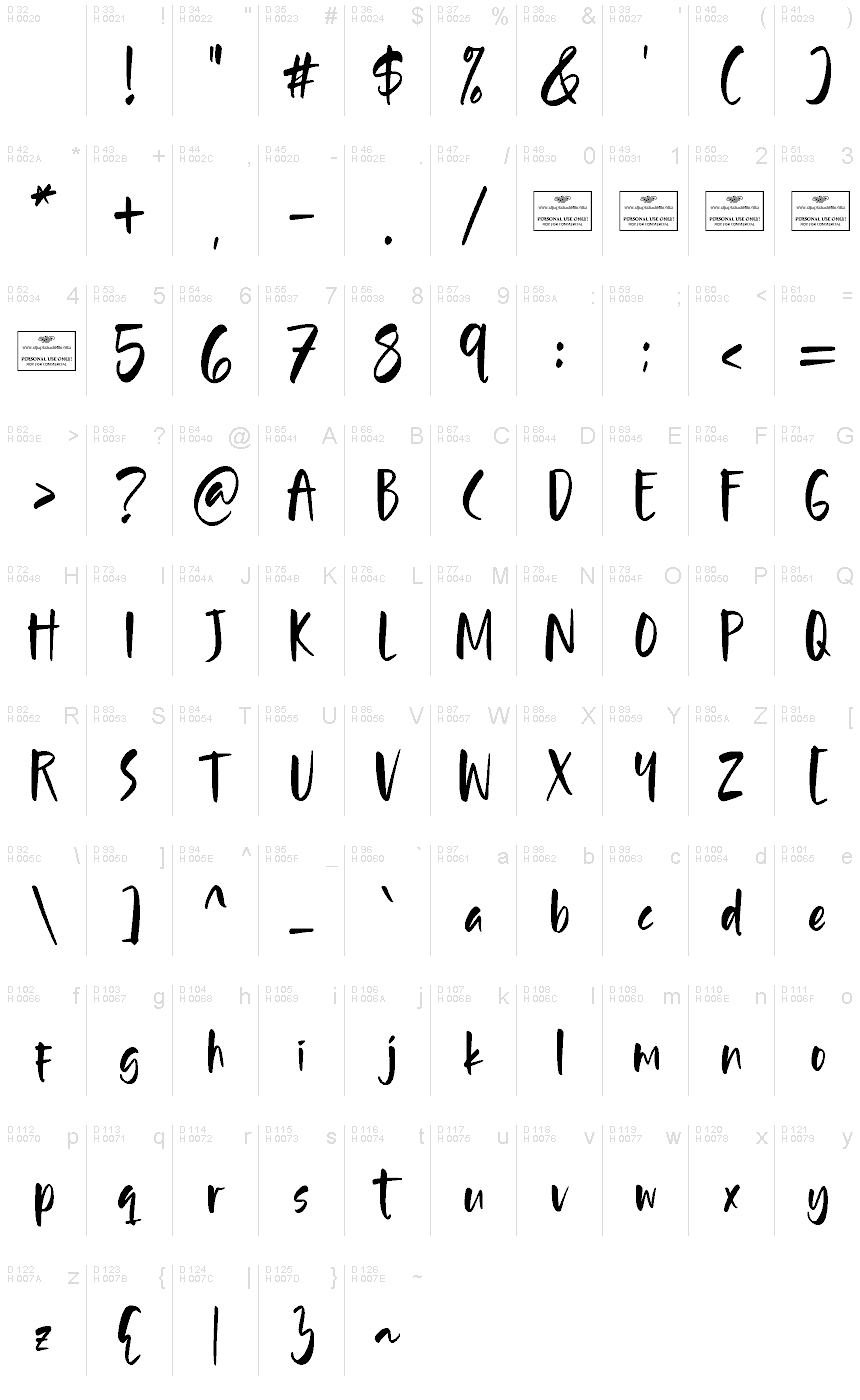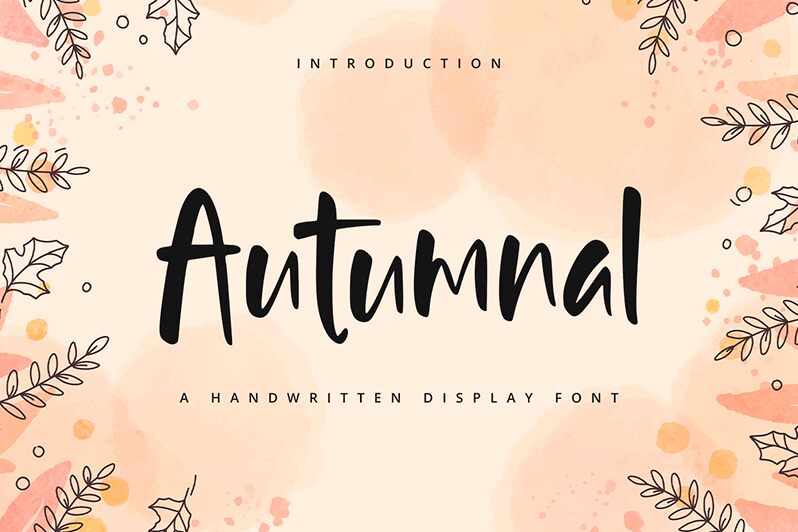
Autumnal
Autumnal font by Alpaprana Studio is an expressive casual handwritten font with a modern flair and artistic touch. Evoking comfort and authenticity with every letter, it adds a handwritten feel that is perfect for bringing text closer to a human touch. With the energetic rhythm of the letters, you will enjoy creating vivid designs filled with life.
Capture your thoughts in writing with Autumnal and use it for diary entries or book covers as well as packaging projects featuring ingredients information. Use it to titivate greeting cards, posters, stationery sets, invitation cards, brochures, flyers for small businesses or branding projects that carry no tension.